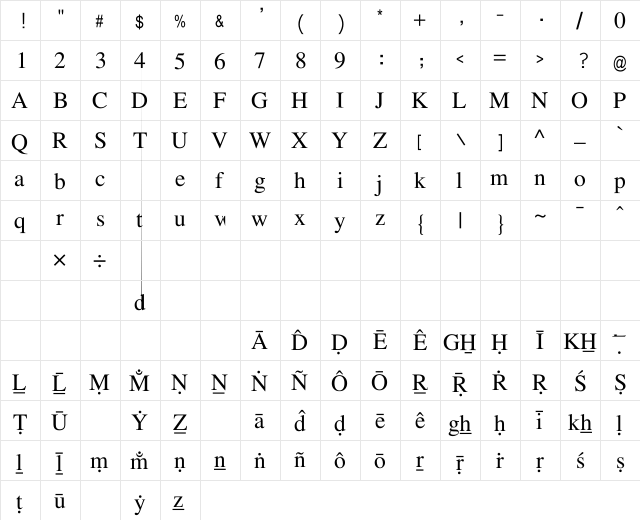
padmaa regular Font Preview
padmaa regular
padmaa regular Font Details
| Style | regular |
| Foundry | IndicTrans |
| Designer | Prof. Jitendra Shah,Sachin A Chavan and Vibha Sinojia |
Design Context for padmaa Typeface
padmaa takes a measured approach to typography — its balanced proportions and neutral character make it a reliable workhorse for both digital and print work.